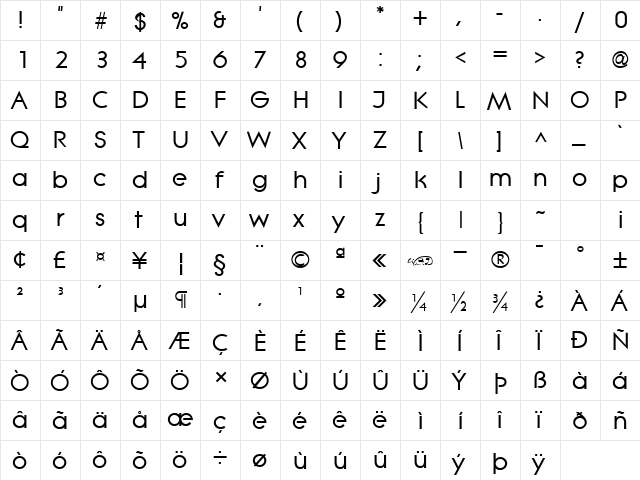
Lithe Bold
Design Context for Lithe Typeface
Lithe takes a measured approach to typography — its balanced proportions and neutral character make it a reliable workhorse for both digital and print work. Its bold stroke weight gives it real presence on the page.